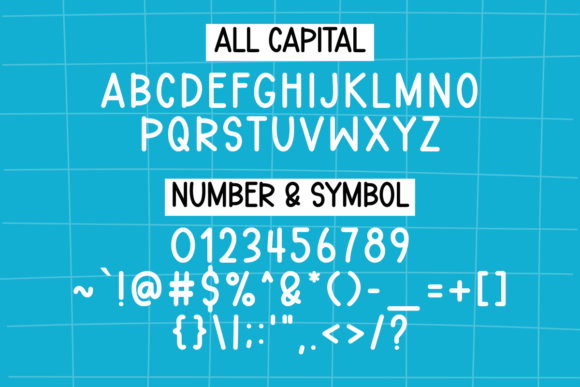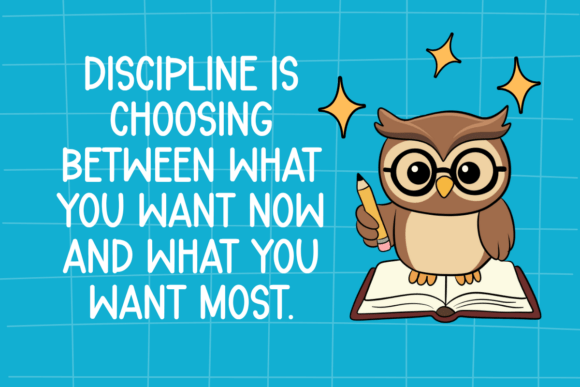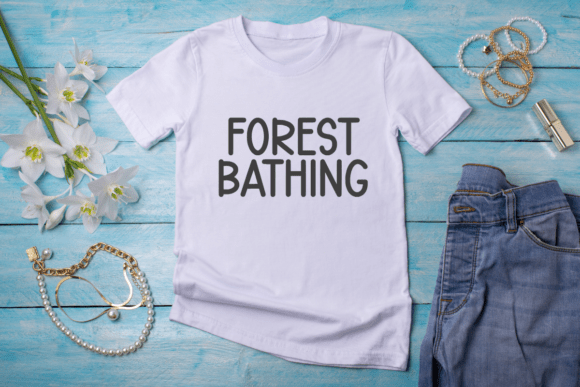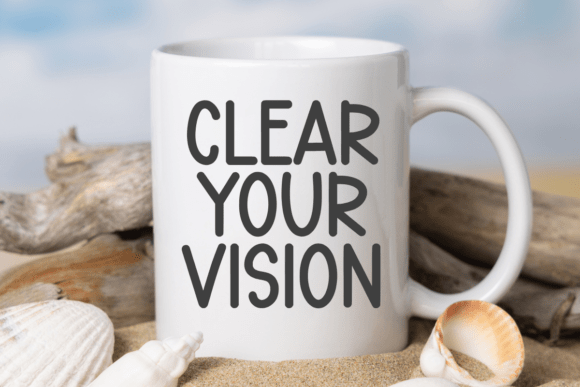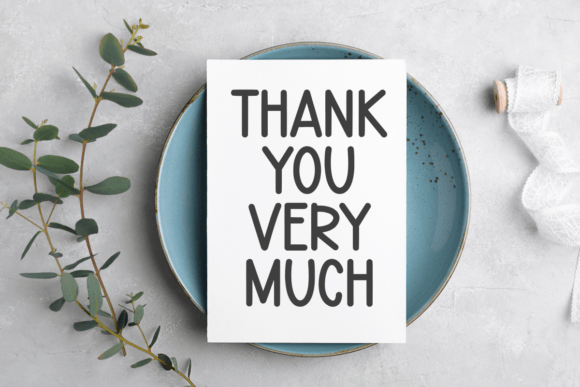
Introducing Funny Highland: The Ultimate Font for Crafty Designs
Are you a crafter, designer, or DIY enthusiast looking for a font that adds a touch of warmth and personality to your projects? Look no further than Funny Highland, a delightful sans serif handwriting font that’s perfect for a wide range of creative endeavors. In this article, we’ll explore the features and benefits of Funny Highland, and show you how to make the most of this adorable font.
What is Funny Highland?
Funny Highland is a carefully crafted font designed to bring a soft, friendly, and natural look to your designs. Its smooth curves and simple strokes make it an ideal choice for craft projects, planners, stickers, kids’ worksheets, classroom printables, and DIY designs. This font is all about evoking a warm, handcrafted feeling that’s sure to delight your audience.
Key Features of Funny Highland
- Cute and playful design: Funny Highland boasts a charming, handwritten style that’s perfect for designers and crafters who love adorable fonts.
- Versatile: Funny Highland is suitable for a wide range of projects, including quotes, greeting cards, kids’ labels, coloring pages, worksheets, bullet journals, scrapbooks, and playful graphic projects.
- Handcrafted feel: This font brings a warm, handcrafted feeling to your designs, making them perfect for crafty projects and DIY enthusiasts.
Who is Funny Highland for?
Funny Highland is perfect for:
- Crafting moms: If you love creating handmade projects, Funny Highland is a great addition to your design toolkit.
- Designers: This font is ideal for designers who want to add a touch of whimsy and playfulness to their designs.
- Teachers and educators: Funny Highland is a great choice for creating engaging and interactive classroom materials, such as worksheets, quizzes, and activity sheets.
- DIY enthusiasts: If you enjoy making things, Funny Highland is a versatile font that can be used for a wide range of DIY projects.
- Use it for titles and headings: Funny Highland is perfect for titles and headings, adding a touch of personality to your designs.
Funny Highland is a delightful font that’s perfect for crafty designers, DIY enthusiasts, and educators. Its cute and playful design, easy-to-cut strokes, and versatile nature make it an ideal choice for a wide range of creative projects. Whether you’re creating handmade cards, kids’ worksheets, or DIY designs, Funny Highland is sure to bring a touch of warmth and personality to your work. So why not give it a try and see what amazing creations you can come up with?